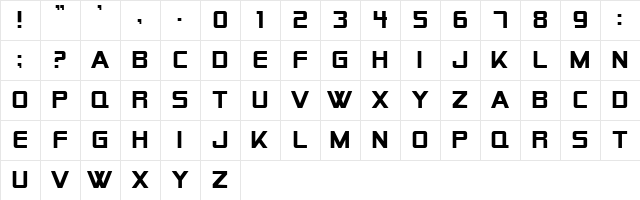
Alien Encounters Solid Regular Free Font
Alien Encounters Solid Regular
Alien Encounters Solid Family
Complete Alien Encounters Solid Regular glyph index. Displaying only characters natively supported by Alien Encounters Solid Regular font.
Design Context for Alien Encounters Solid
Alien Encounters Solid is a composed and adaptable typeface that performs quietly and consistently across a wide range of design contexts.